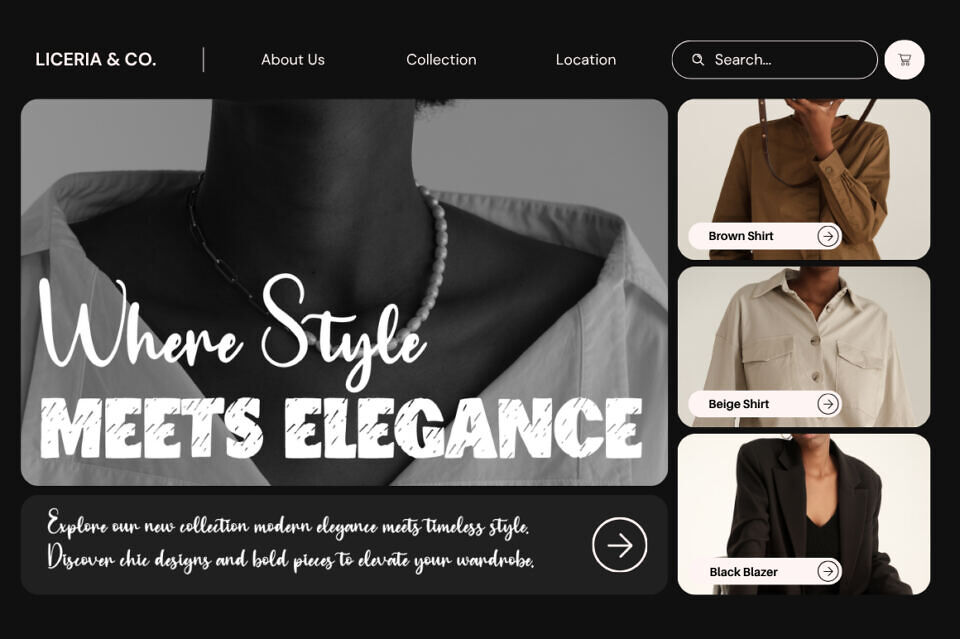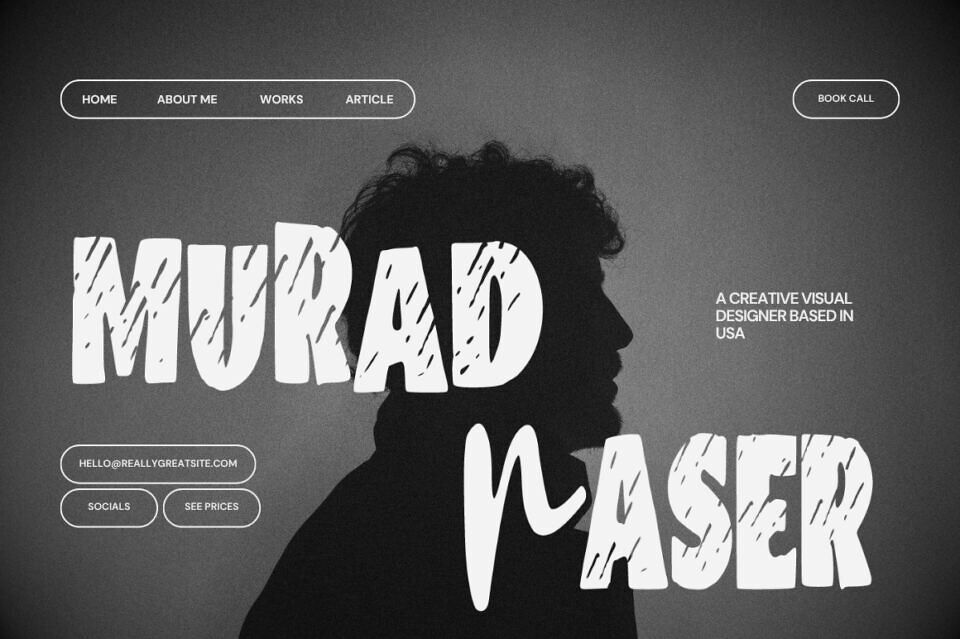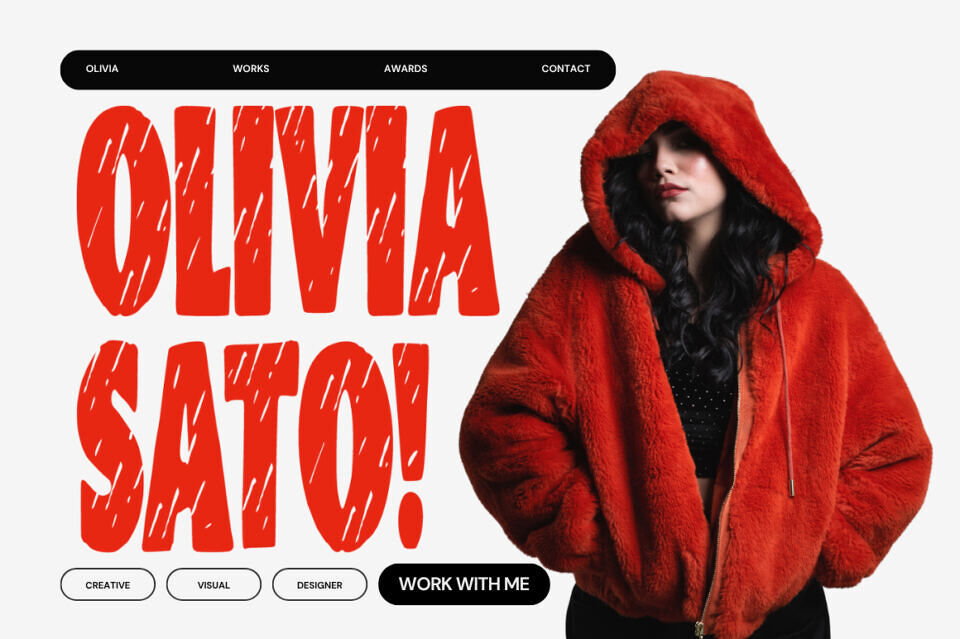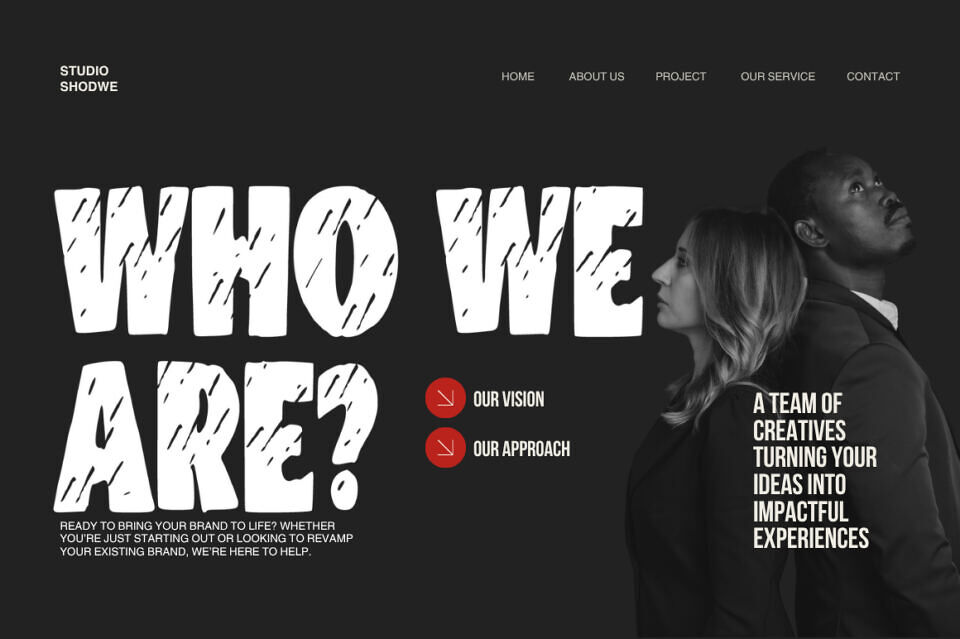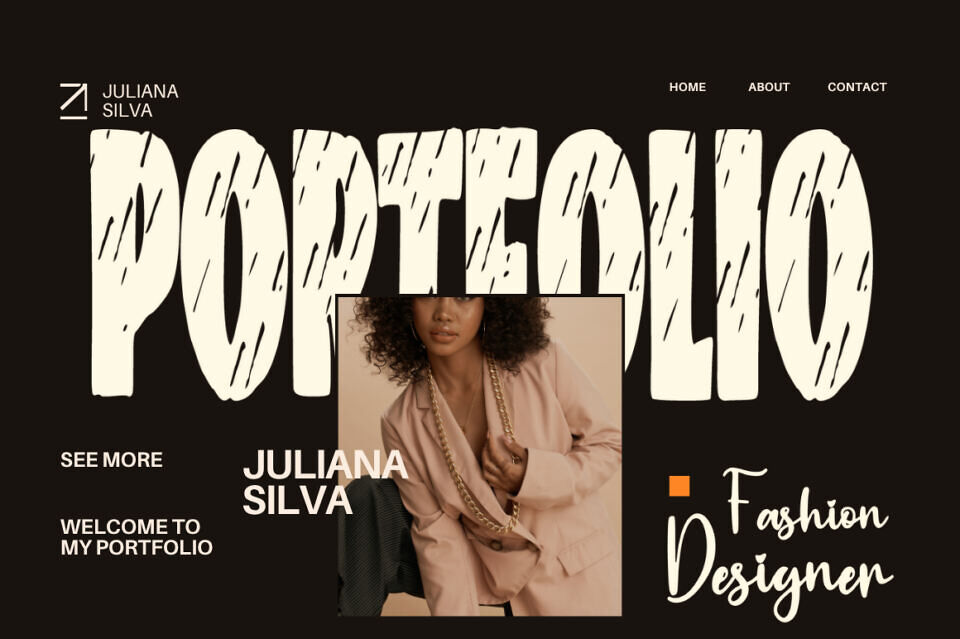
Chillout Font is a playful and stylish font duo that combines bold display letters with a smooth handwritten script.
Perfect for creating eye-catching designs, this font is great for posters, branding, logos, social media, product packaging, t-shirts, and more. Its fun and casual style makes it versatile for both digital and print projects. Whether you want to create bold headlines or elegant script accents, Chillout Font will bring personality and charm to your work.